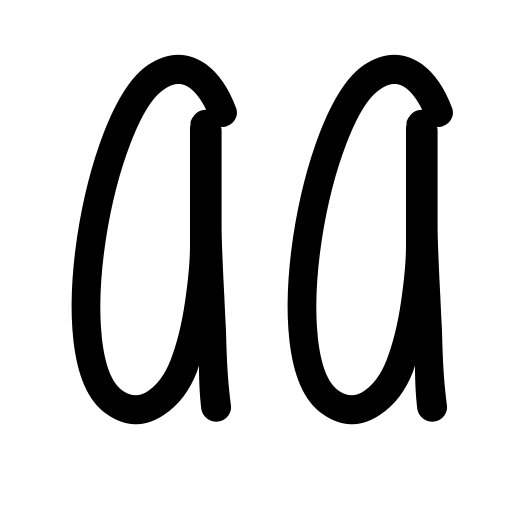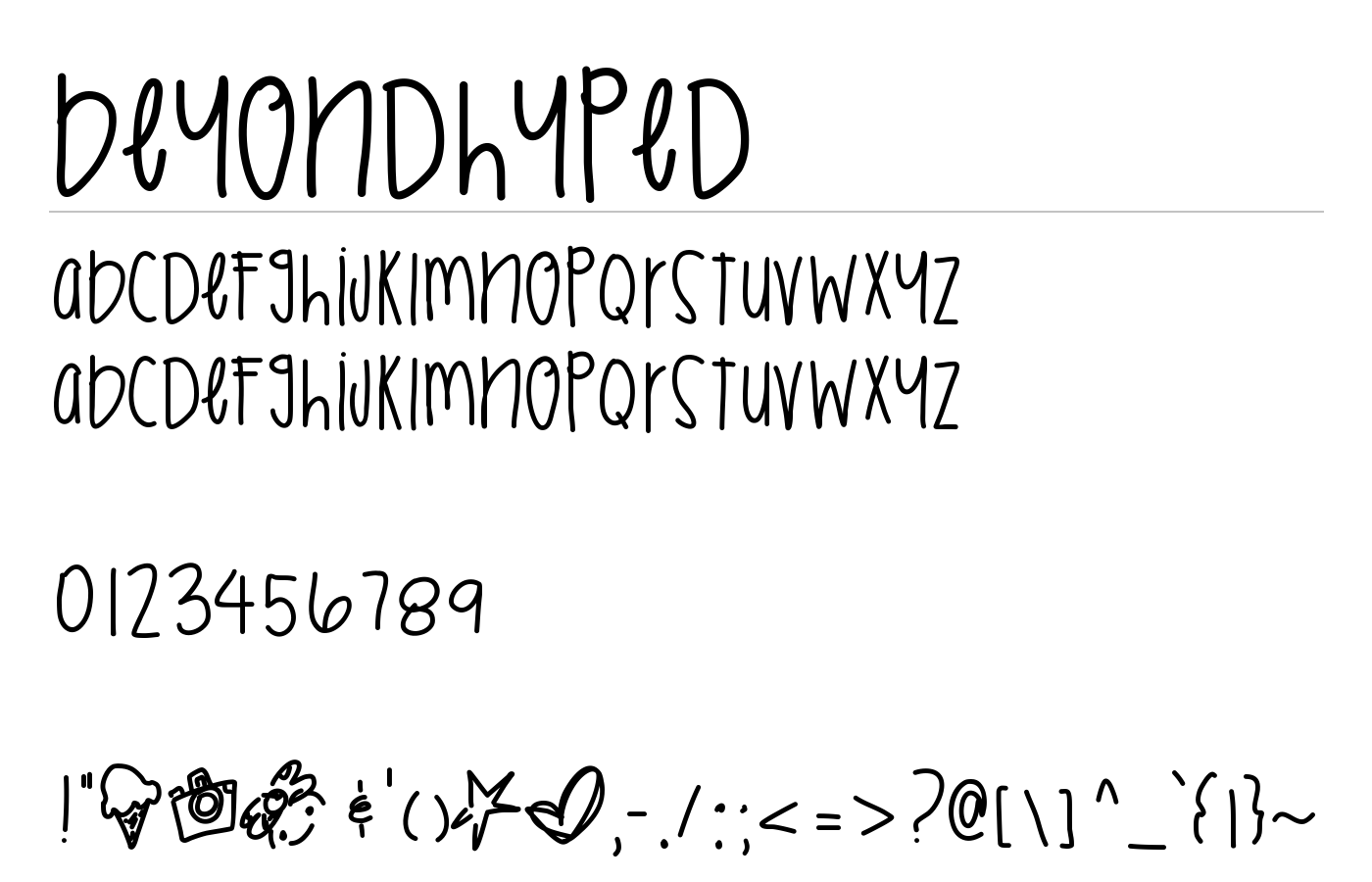
BeyondHyped is a playful and whimsical handwritten font with tall, narrow letterforms that give it a friendly and casual vibe. Its thin strokes and uneven, quirky shapes create an inviting, informal look perfect for fun, youthful designs. This font works well for creative projects, social media graphics, and branding that aims to feel approachable and lighthearted.
BeyondHyped Font
About BeyondHyped Font